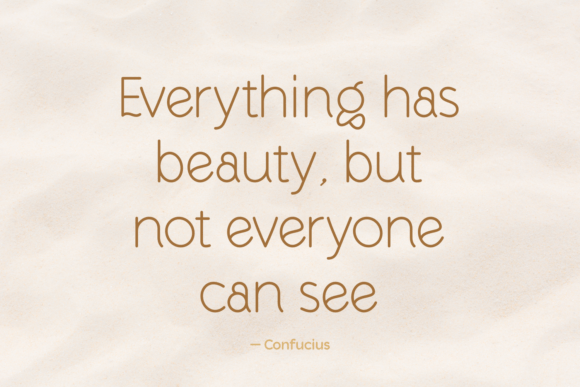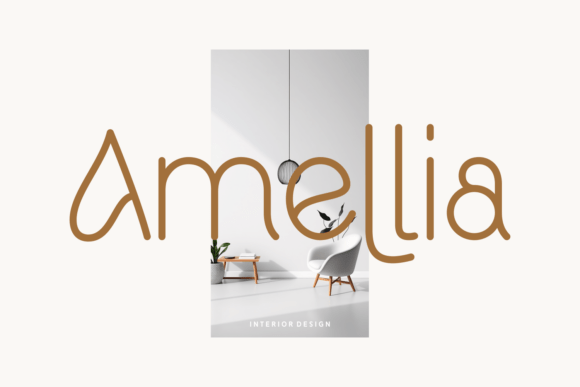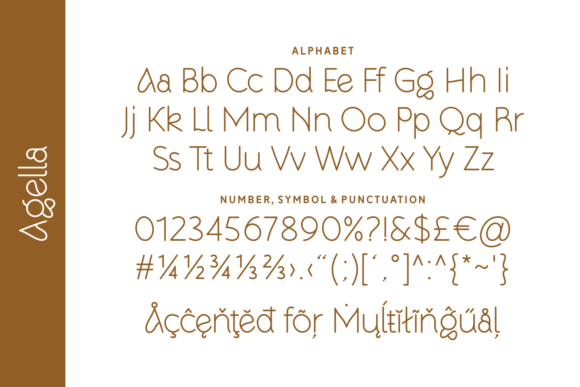
The Agella Font: A Soft and Playful Modern Sans Serif for Creative Projects
Have you ever been in the middle of a design project, and suddenly, you’re stuck on finding the perfect font? I recall a recent experience where I was working on a branding project for a children’s toy company, and I just couldn’t find a font that captured the playful yet friendly vibe I was going for. That’s when I stumbled upon the Agella font, and it instantly became my go-to choice. In this article, I’ll share my experience with Agella, its features, and how to make the most of it in your designs.
First Impressions: What I Love About Agella
Agella is a soft and playful modern sans serif font that exudes a uniquely charming personality. Here are some things I love about Agella:
- ✨ Fluid strokes and rounded terminals that create a friendly, organic look
- ✅ Perfect for branding, packaging, logos, children’s designs, and wellness-themed projects
- 🌈 A casual yet stylish flow that adds warmth and creativity to any layout
- 📚 Blends readability with flair, making it perfect for body text and headlines
Honest Review: Small Quirks and Limitations
While Agella is an amazing font, it’s not without its quirks. Here are a few things to keep in mind:
- 🤔 Some users might find the font a bit too soft or rounded for certain projects
- ⚠️ Limited availability of certain OpenType features in certain software
The Story Behind Agella
Agella was designed with the intention of creating a font that’s both friendly and stylish. The designer aimed to craft a font that would be perfect for creative projects, from branding and packaging to children’s designs and wellness-themed projects. With its fluid strokes and rounded terminals, Agella is sure to add a touch of warmth and personality to any design.
| What type of projects is Agella best suited for? | Agella is perfect for branding, packaging, logos, children’s designs, and wellness-themed projects. |
| Can I use Agella for body text? | Yes, Agella is suitable for body text, especially in larger sizes. However, it may not be the best choice for very small text sizes. |
| Does Agella have OpenType features? | Yes, Agella has OpenType features like stylistic alternates and glyphs that can be used to add flair to your text. |